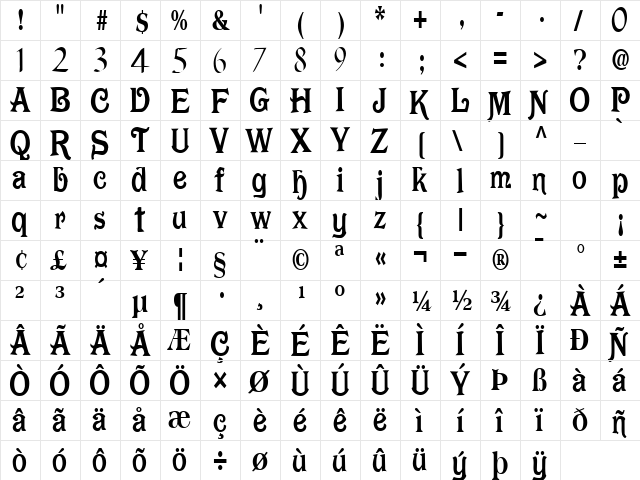
Dark Regular
Design Context for Dark Typeface
Dark is a composed and adaptable typeface that performs quietly and consistently across a wide range of design contexts.